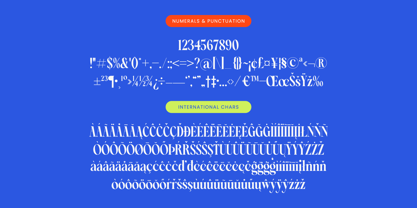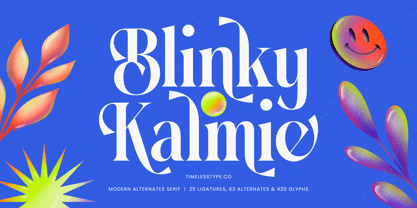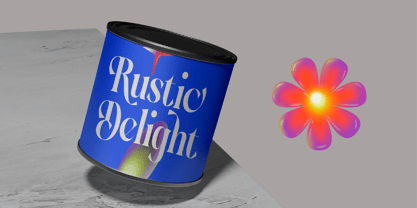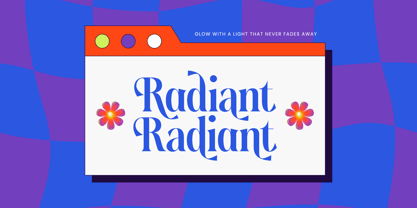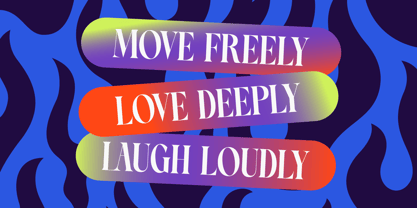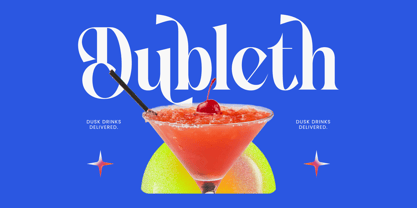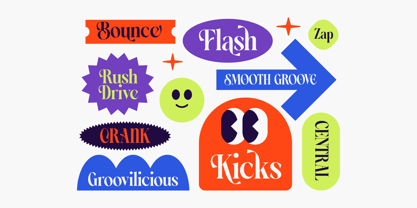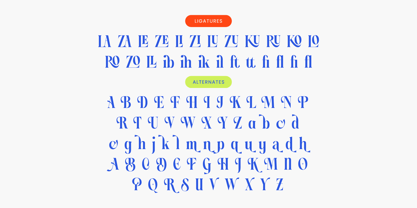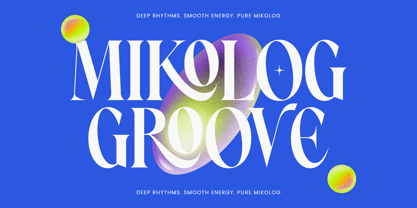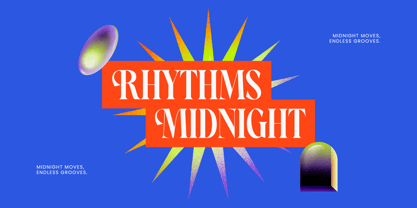
Blinky Kalmie
by Timelesstype Studio
The Blinky Kalmie Font Family was designed by Heru Utama Putra and published by Timelesstype Studio. Blinky Kalmie contains 2 styles and family package options.
Blinky Kalmie - Modern Alternate Serif , from Timelesstype , Suitable for any projects such as: logos, branding projects, homeware designs, product packaging, mugs, quotes, posters, shopping bags, t-shirts, book covers, name card, invitation cards, greeting cards, label, photography, watermark, special events, and all your other luxury and beautiful projects that need a Luxury Serif taste.